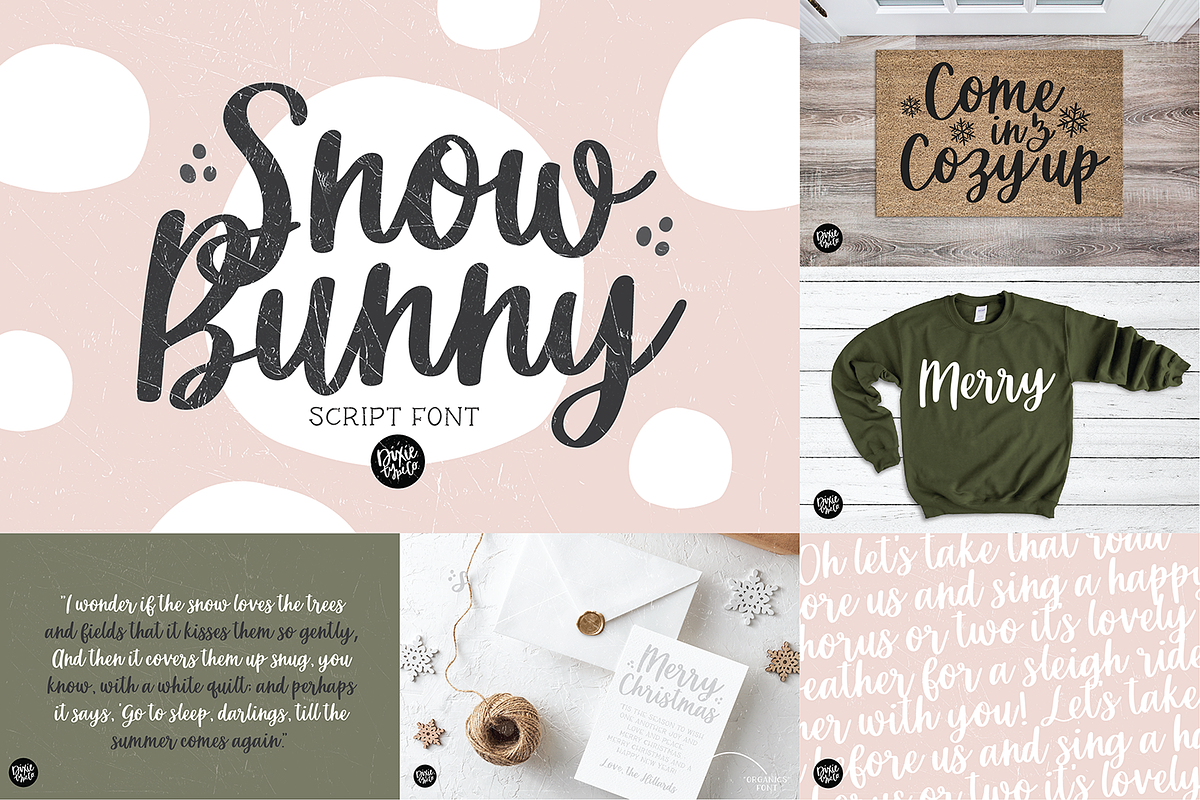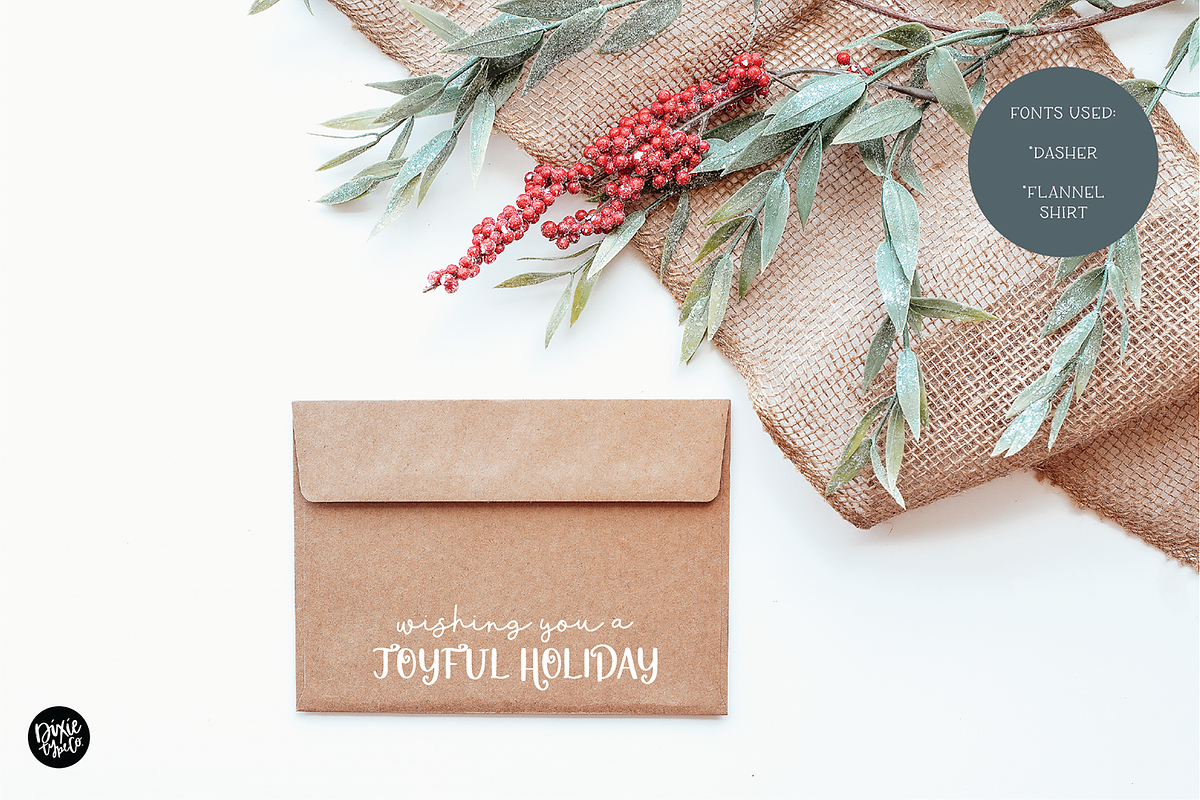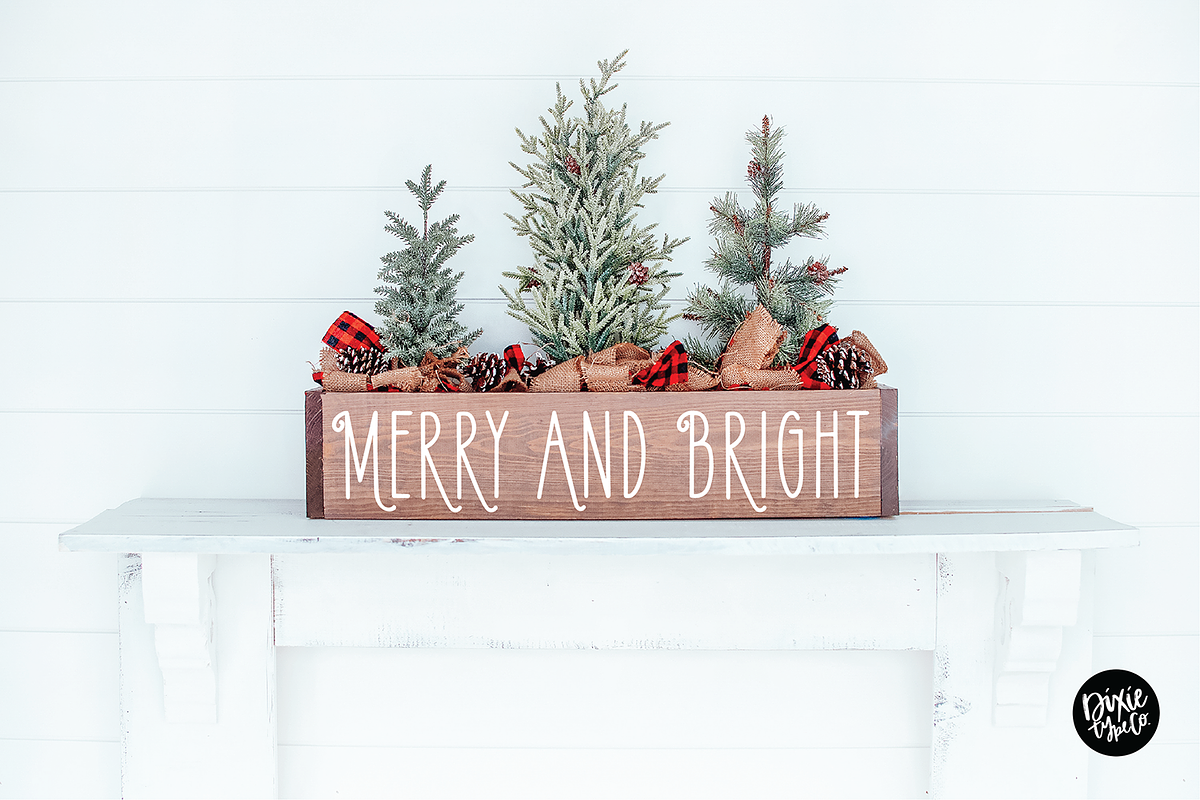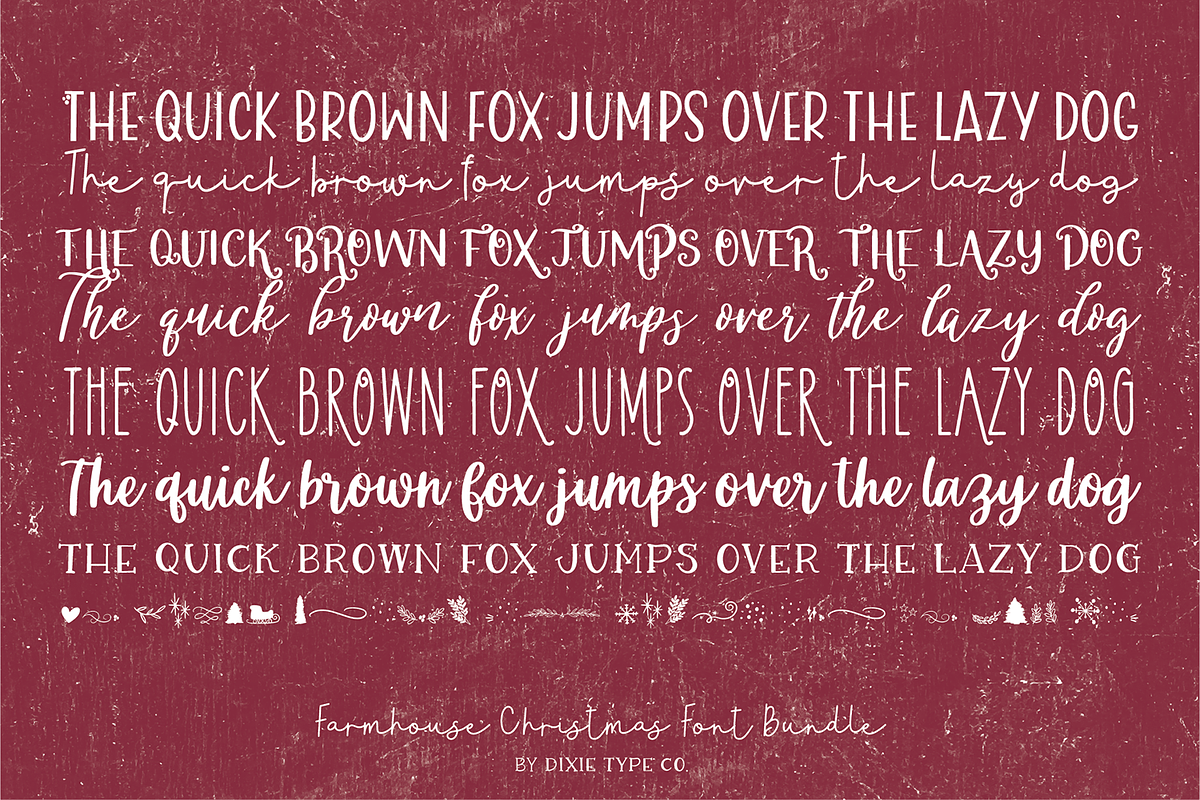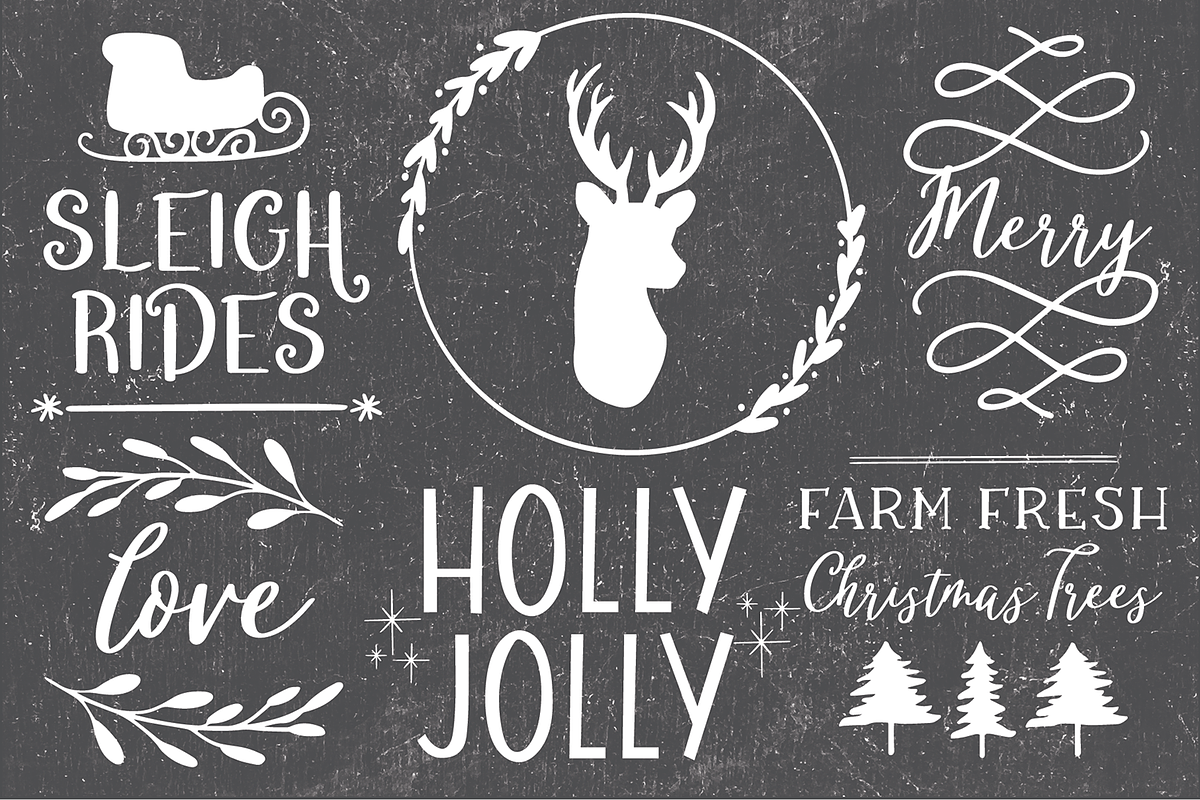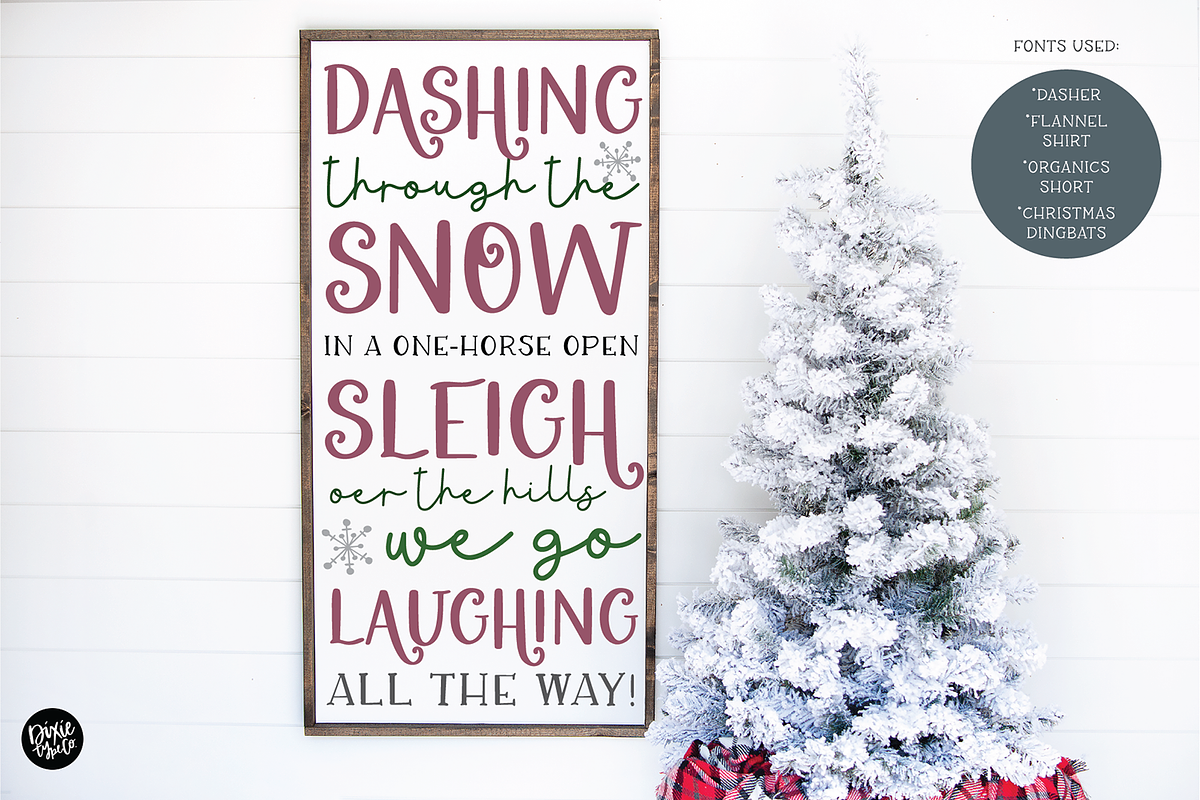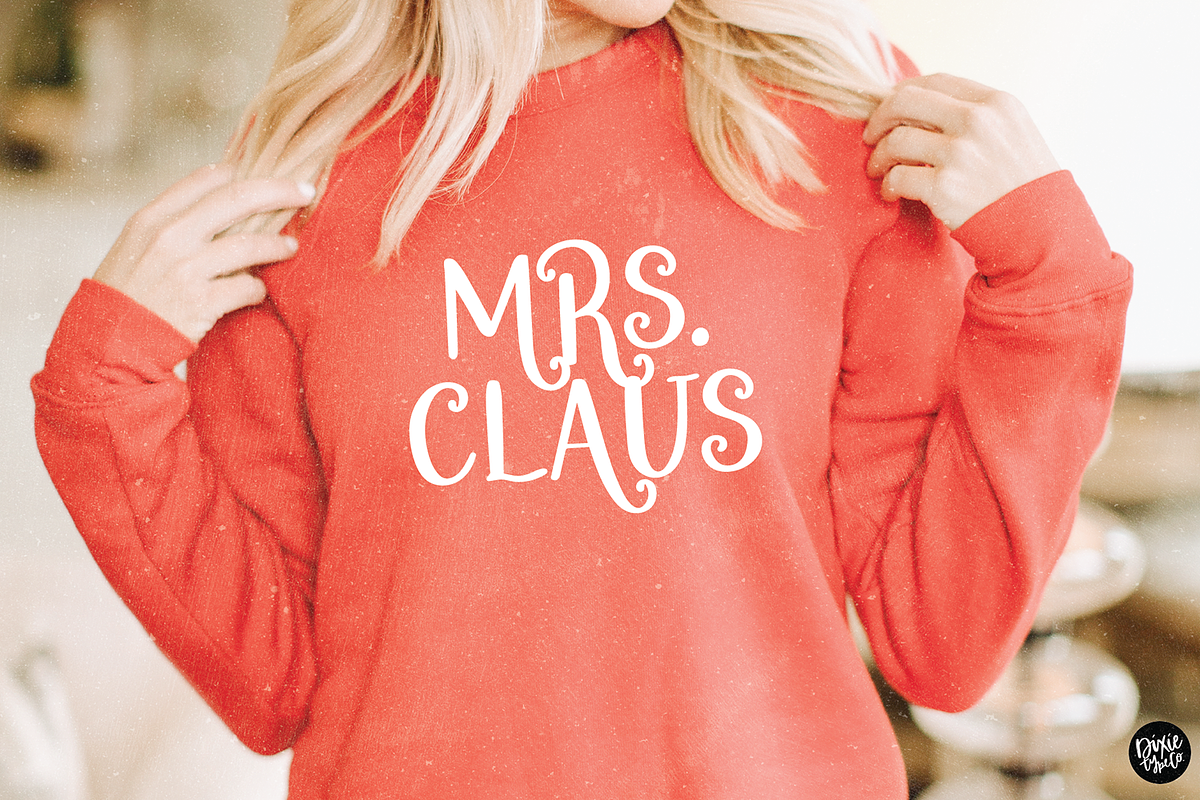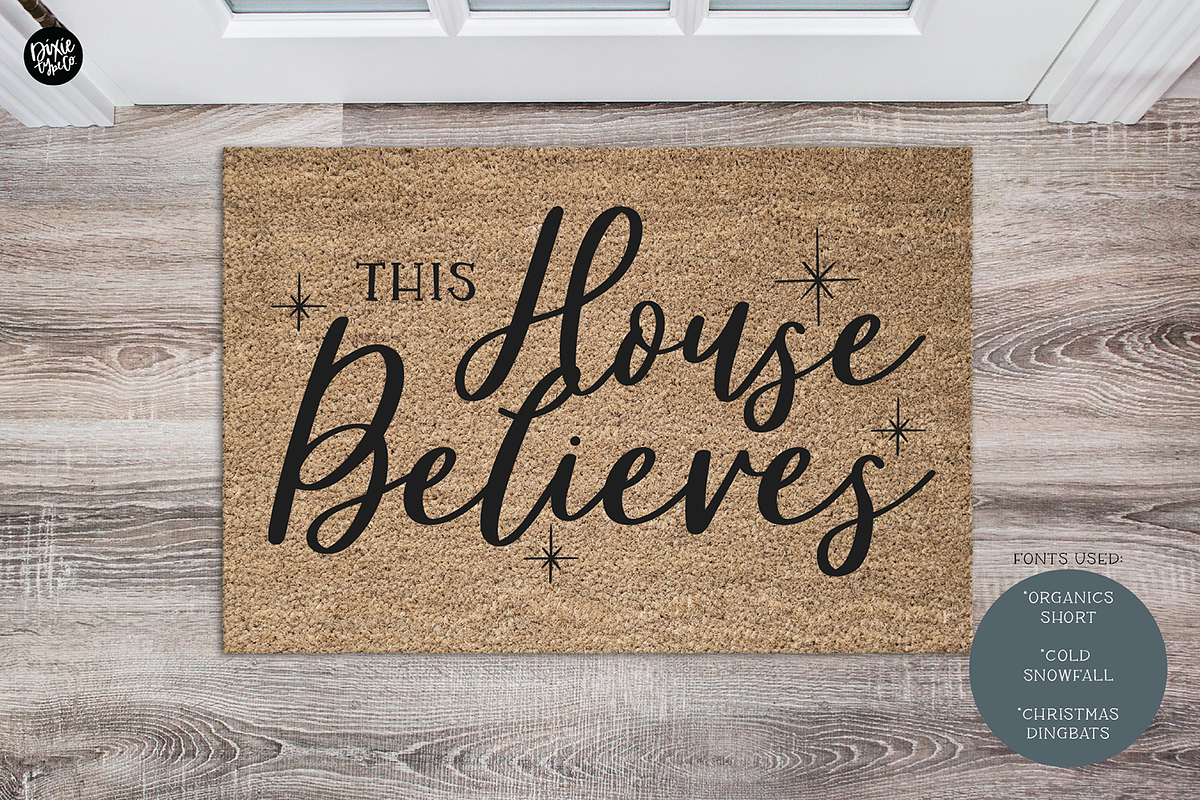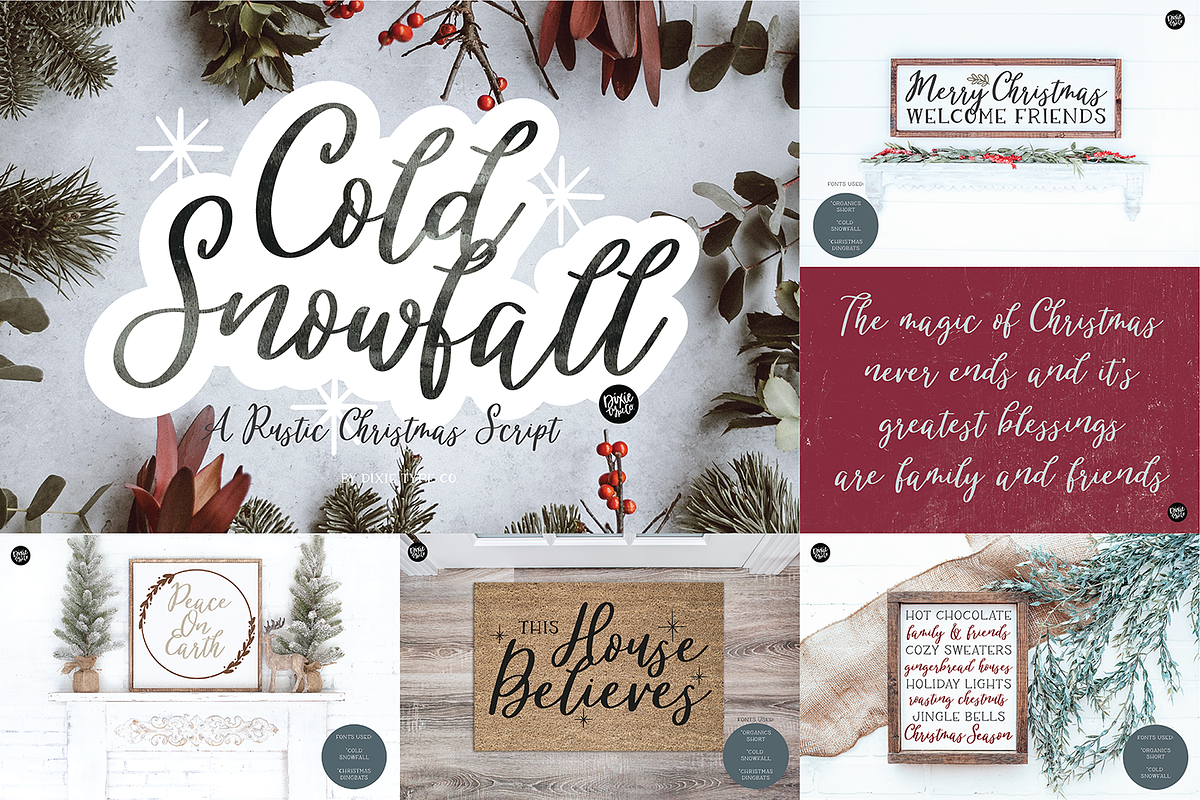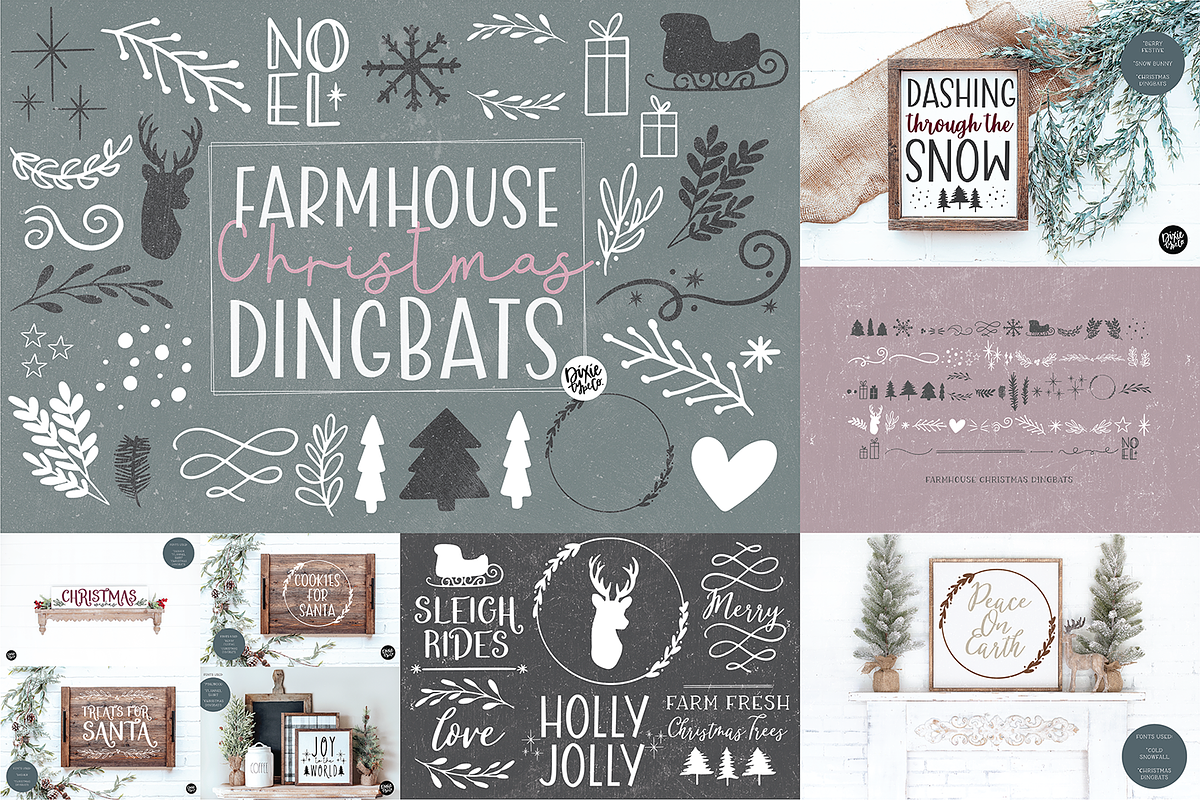
FARMHOUSE CHRISTMAS FONT BUNDLE
Grab these 8 NEW installable fonts in one download, for a savings of over 70% off! These fonts were all hand-lettered with a brush and ink, or iPad Pro. The 8 fonts included are:
SNOW BUNNY ORGANICS(SHORT) PINEWOOD DASHER COLD SNOWFALL BERRY FESTIVE FARMHOUSE CHRISTMAS DINGBATS FLANNEL SHIRT